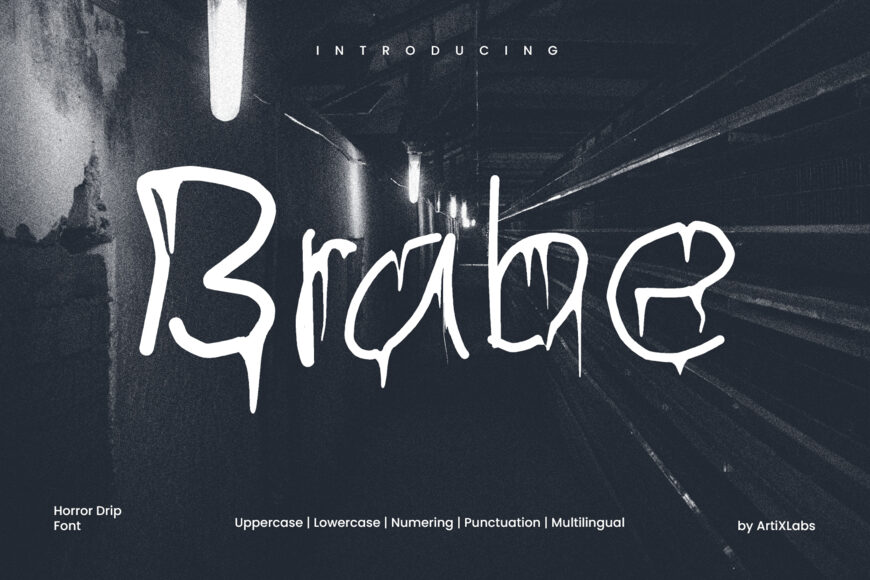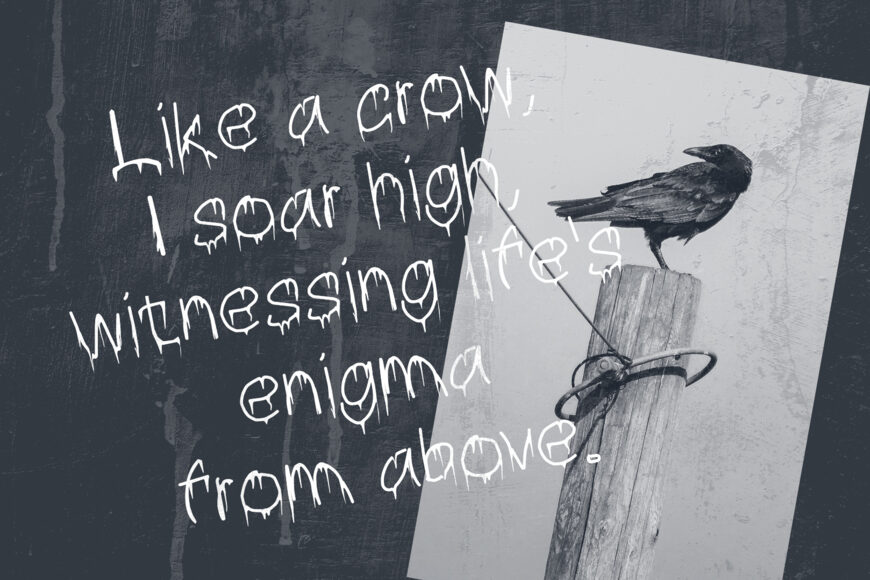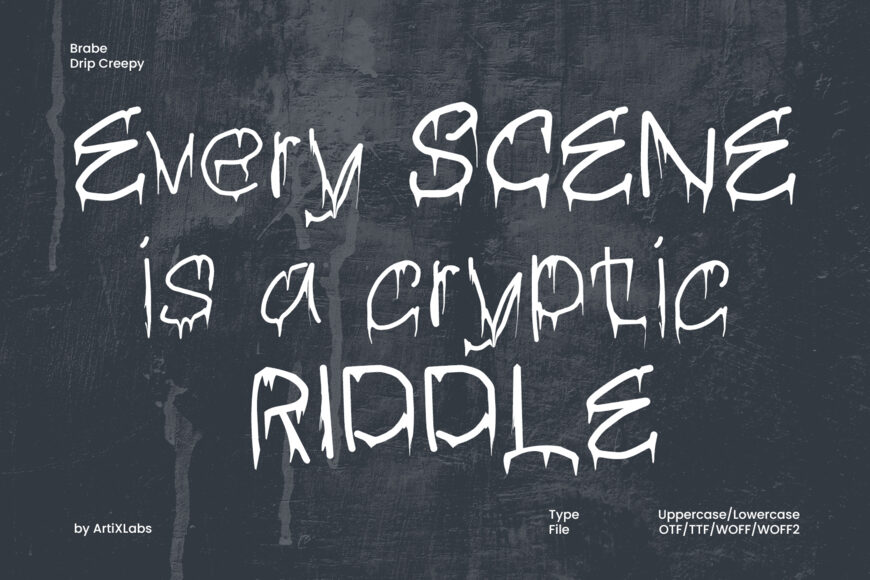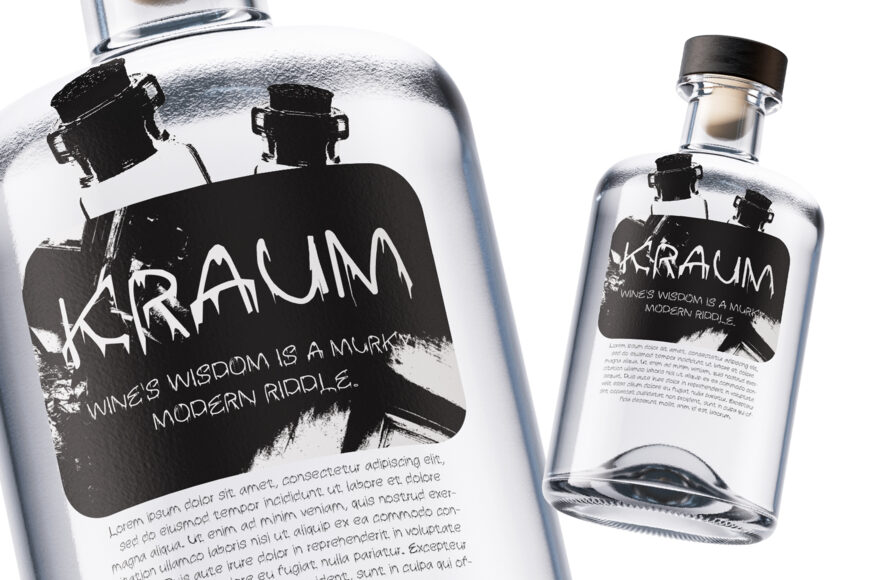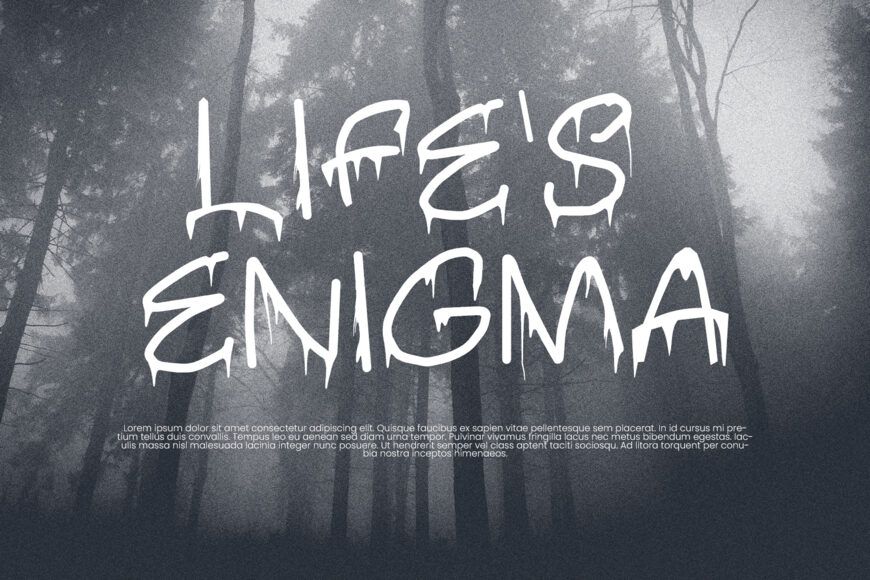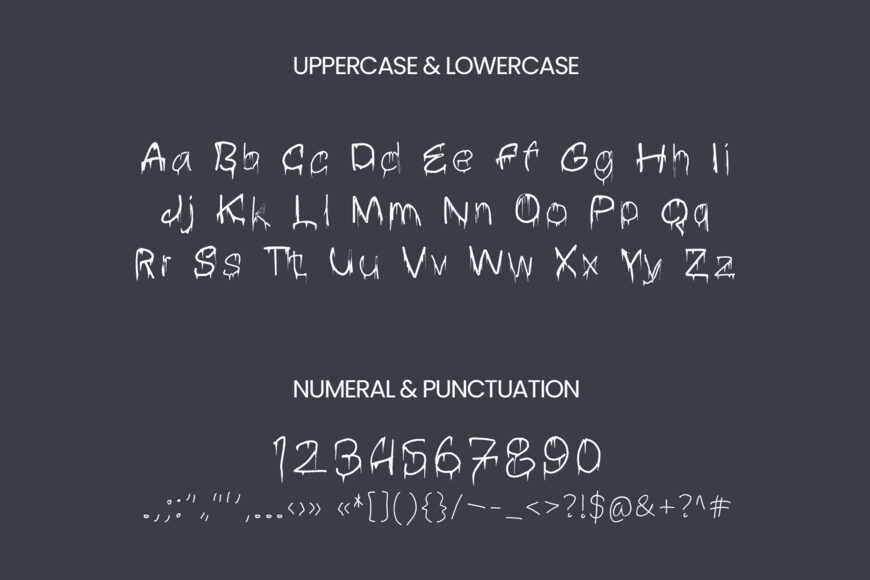
Bring unsettling suspense, raw urban energy, and thriller appeal to your designs with Brabe. This horror-inspired display font combines unpredictable handwritten strokes, warped loops, and eerie liquid drips flowing from the letter stems.
Perfect for horror posters, thriller graphics, Halloween flyers, streetwear, album artwork, escape room branding, dark fiction covers, and personalized Cricut or Silhouette SVG crafts.